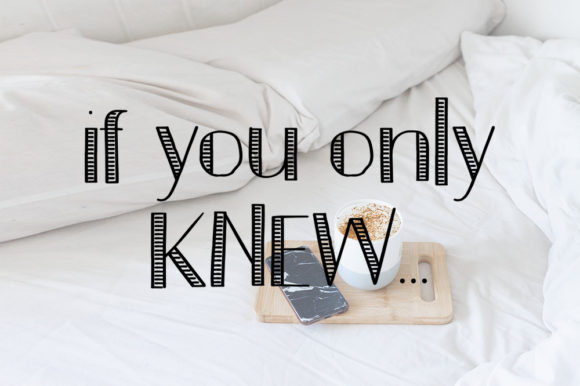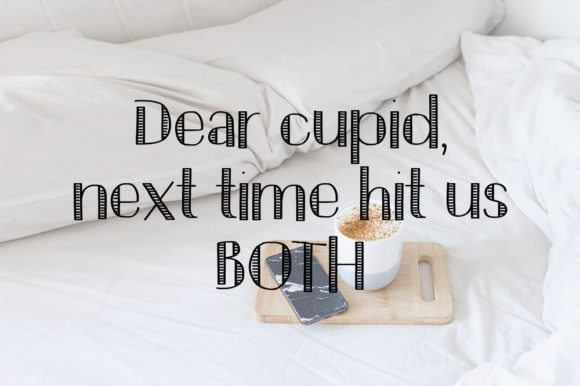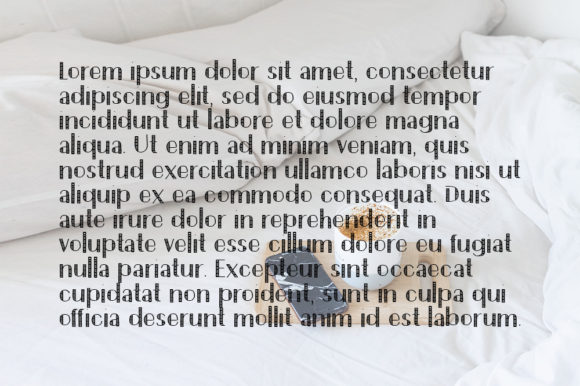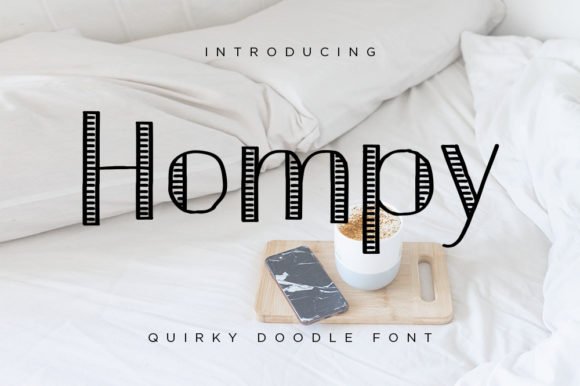
Introduction to Hompy Font
Unleash your inner child with Hompy.
This quirky and doodly font will add a playful feel to any design project .
Hompy Font offers exceptional quality and versatility, making it a valuable addition to your design toolkit. Whether you’re creating for personal projects or commercial use, Hompy Font delivers professional results.